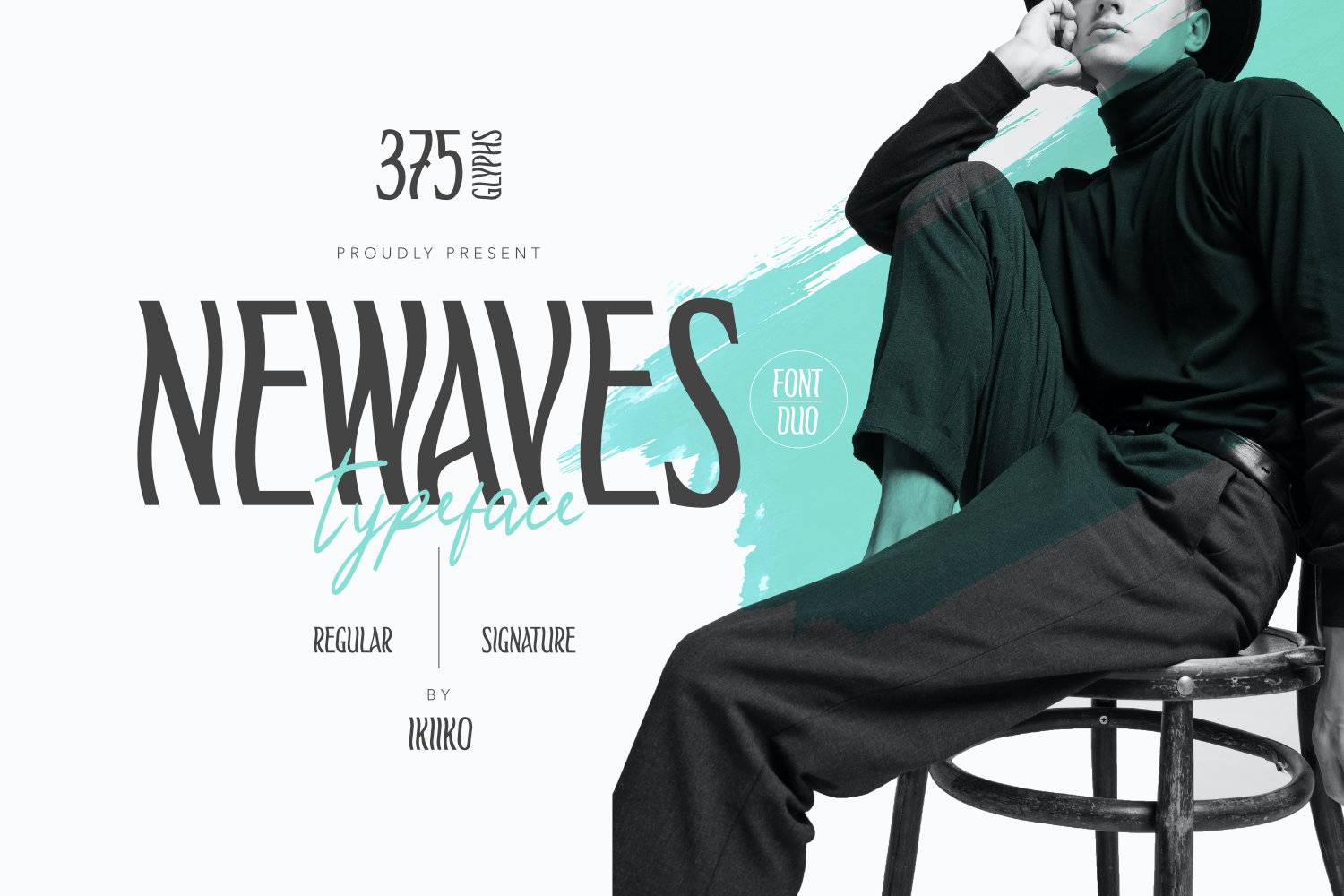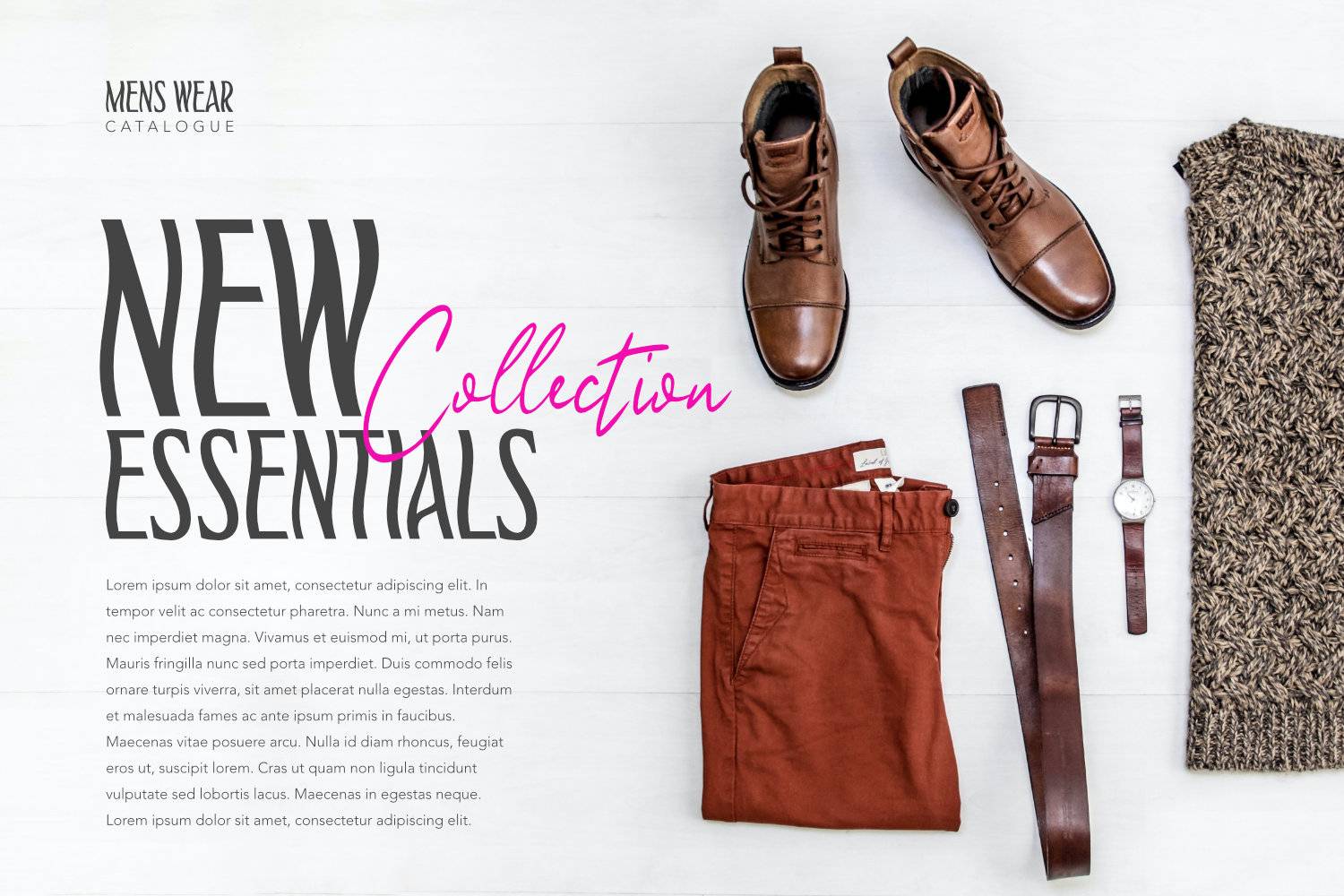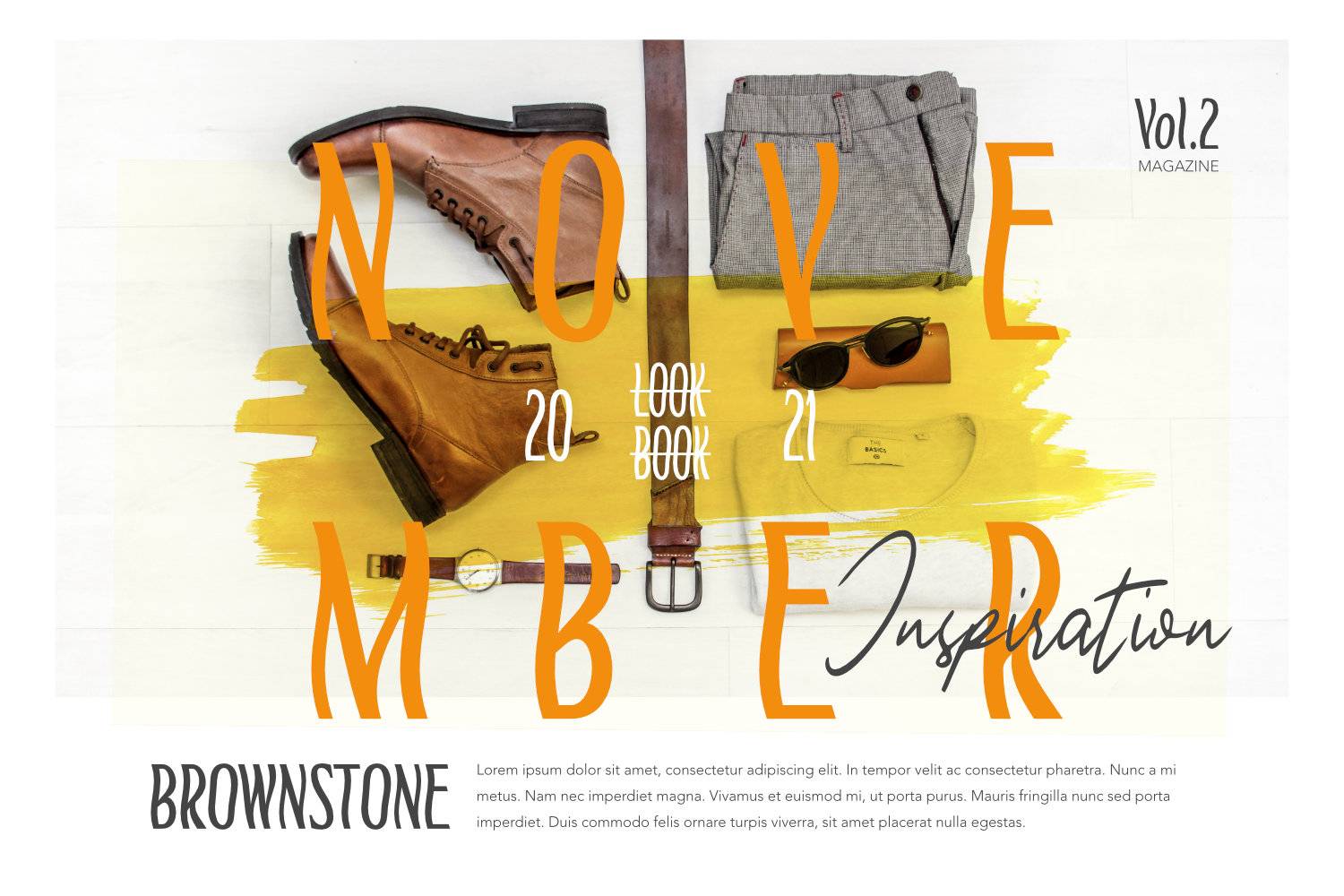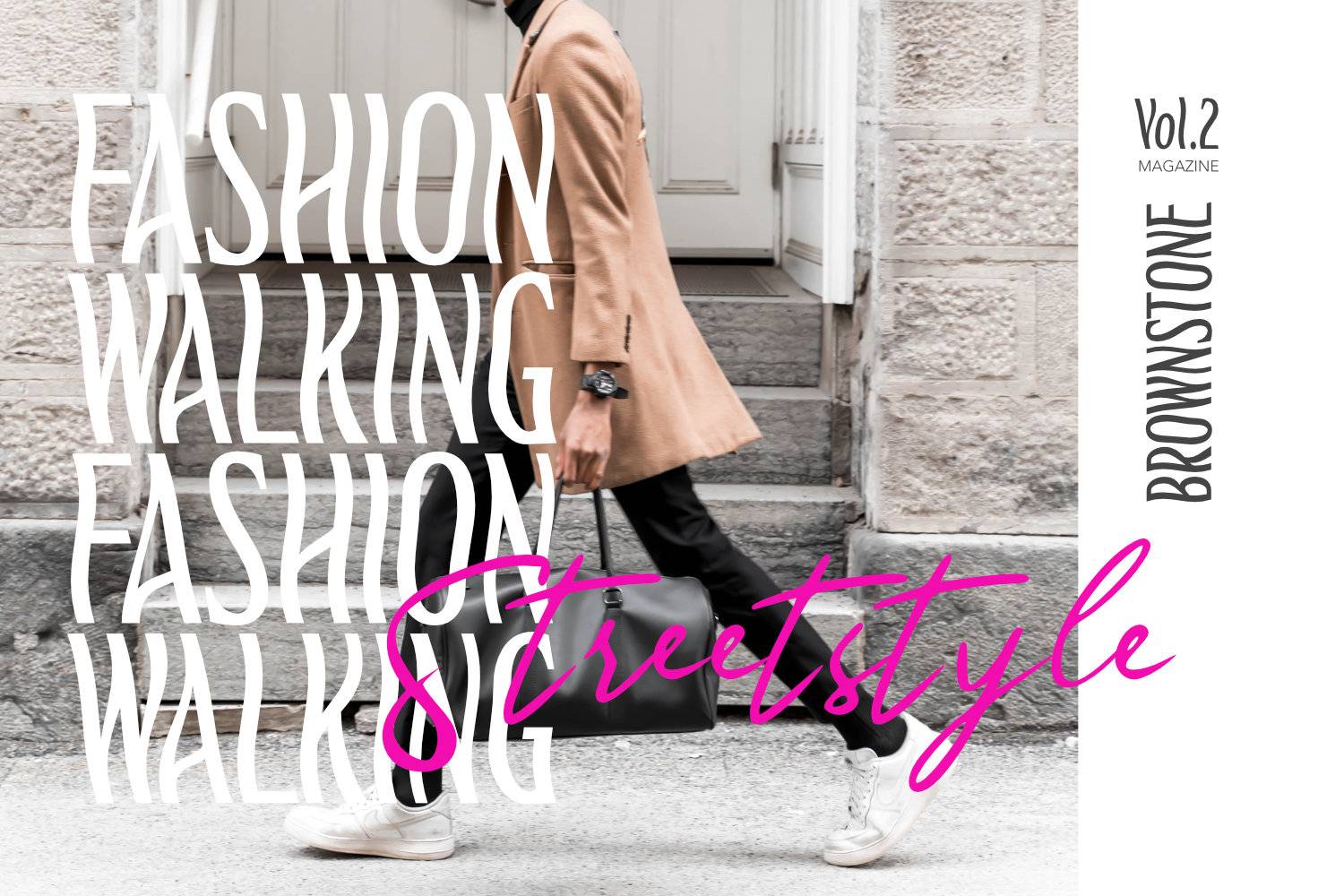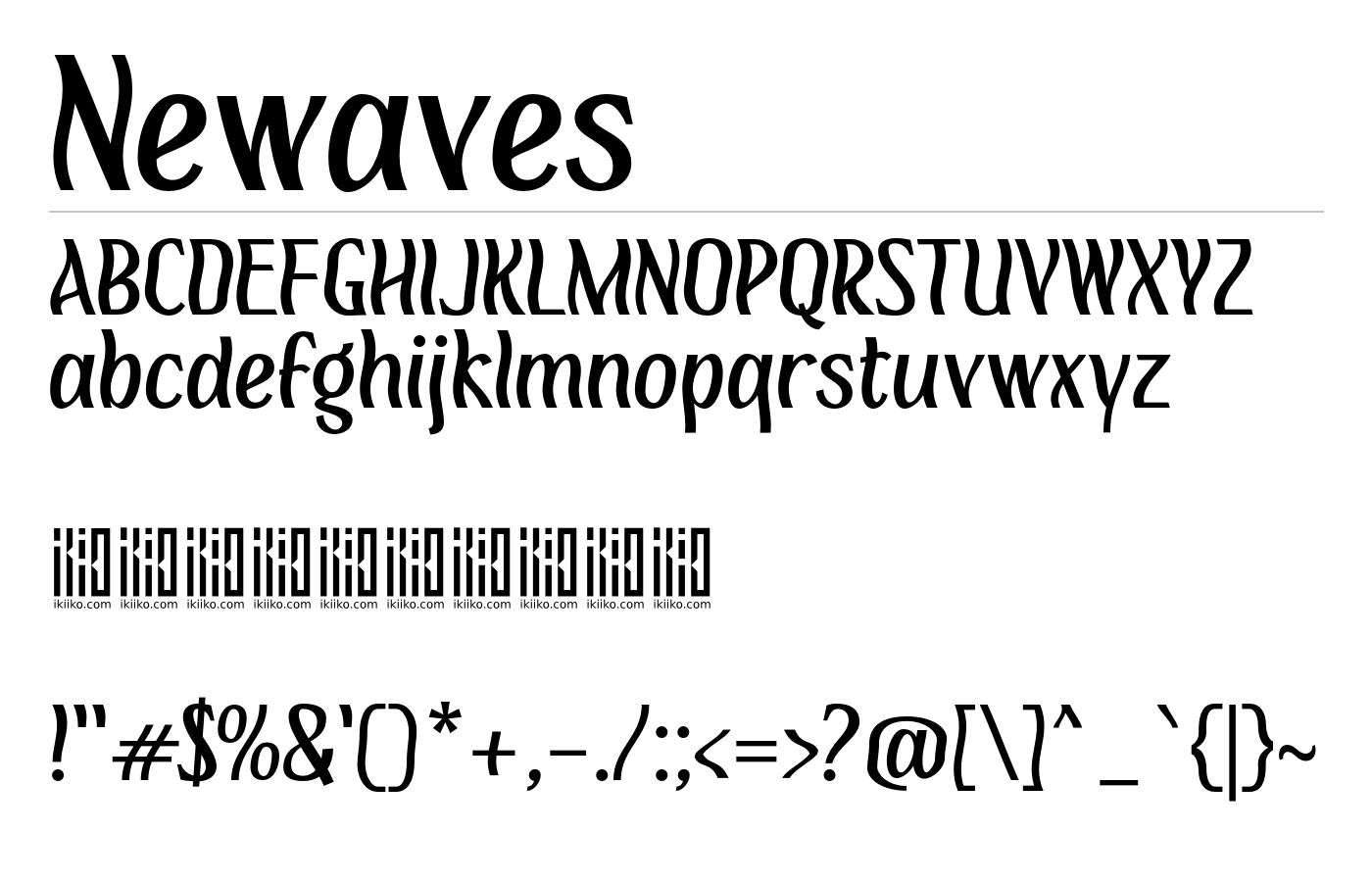
Newaves is a playful and quirky sans serif font with a lightly condensed structure and medium stroke contrast, characterized by its tall x-height and unique curved terminal shapes. The font’s whimsical letterforms, including angled stems and distinctive ampersand, give it a casual yet artistic feel, making it ideal for creative branding, headlines, and packaging that want to convey a friendly and approachable personality. Its clear readability combined with expressive details also suits contemporary editorial use where a touch of charm is desired.
Newaves Font
About Newaves Font
| Designer | Andhika Pradana, Wahyu Eka Prasetya |